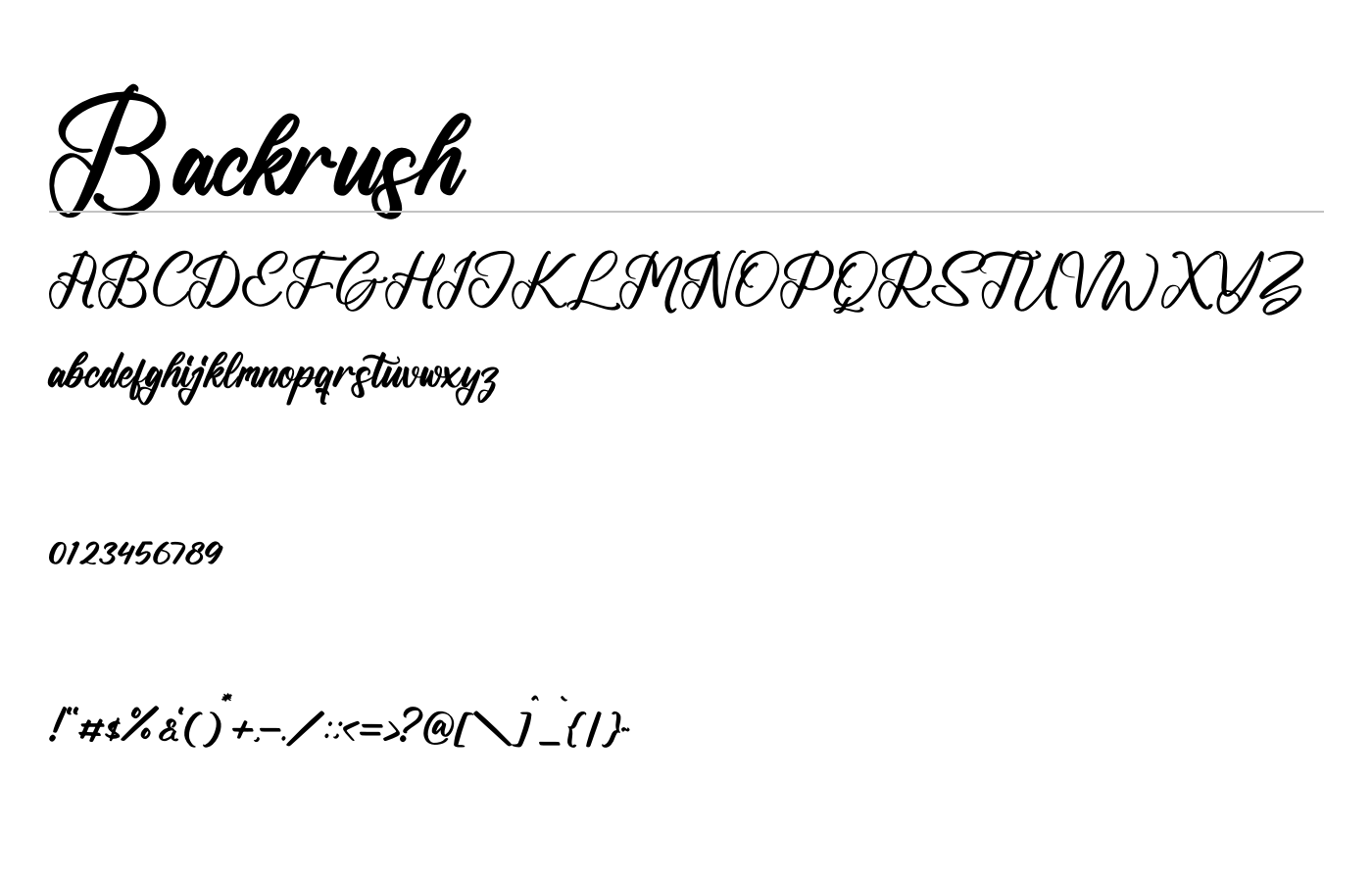
Backrush is a lively script font with elegant, flowing letterforms that combine thick and thin strokes for a dynamic, handwritten feel. Its bold weight and smooth, rounded curves give it a friendly yet stylish personality, making it perfect for branding, invitations, and decorative headlines where a touch of warmth and sophistication is desired. This font shines in creative projects that want to convey charm and personality without sacrificing readability.
Backrush Font
About Backrush Font